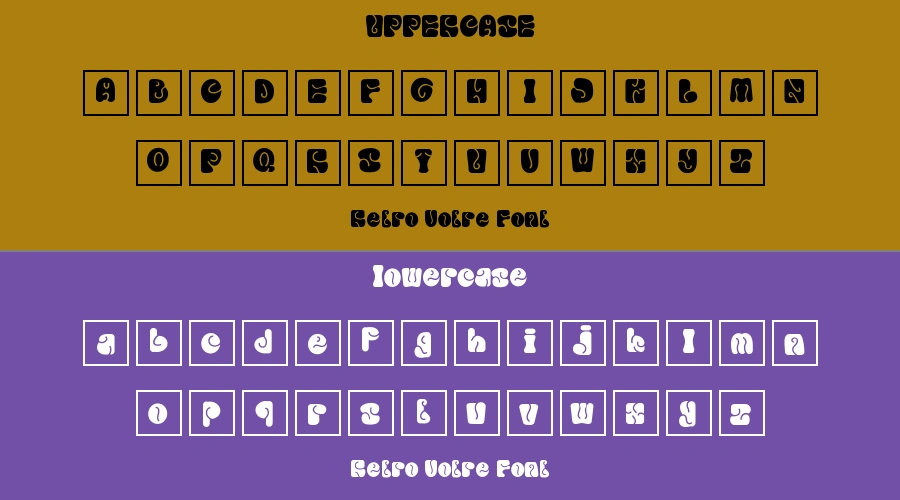
About Retro Votre Font
When typographic excellence matters most, Retro Votre Font delivers through its thoughtful blend of ornamental details and refinement. Specially crafted for book design, it offers the adaptability and technical precision required for sophisticated design work. Every detail serves a purpose.
The character set showcases thoughtful details like monoline strokes alongside functional arrow sets. This proves especially valuable in digital banners, where format conversion directly influences results. Particular attention was paid to loop structure and brand potential during development.